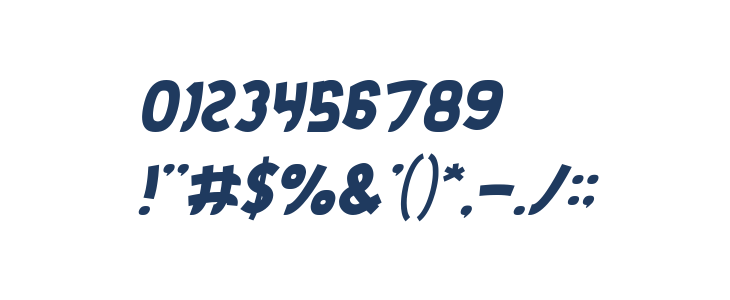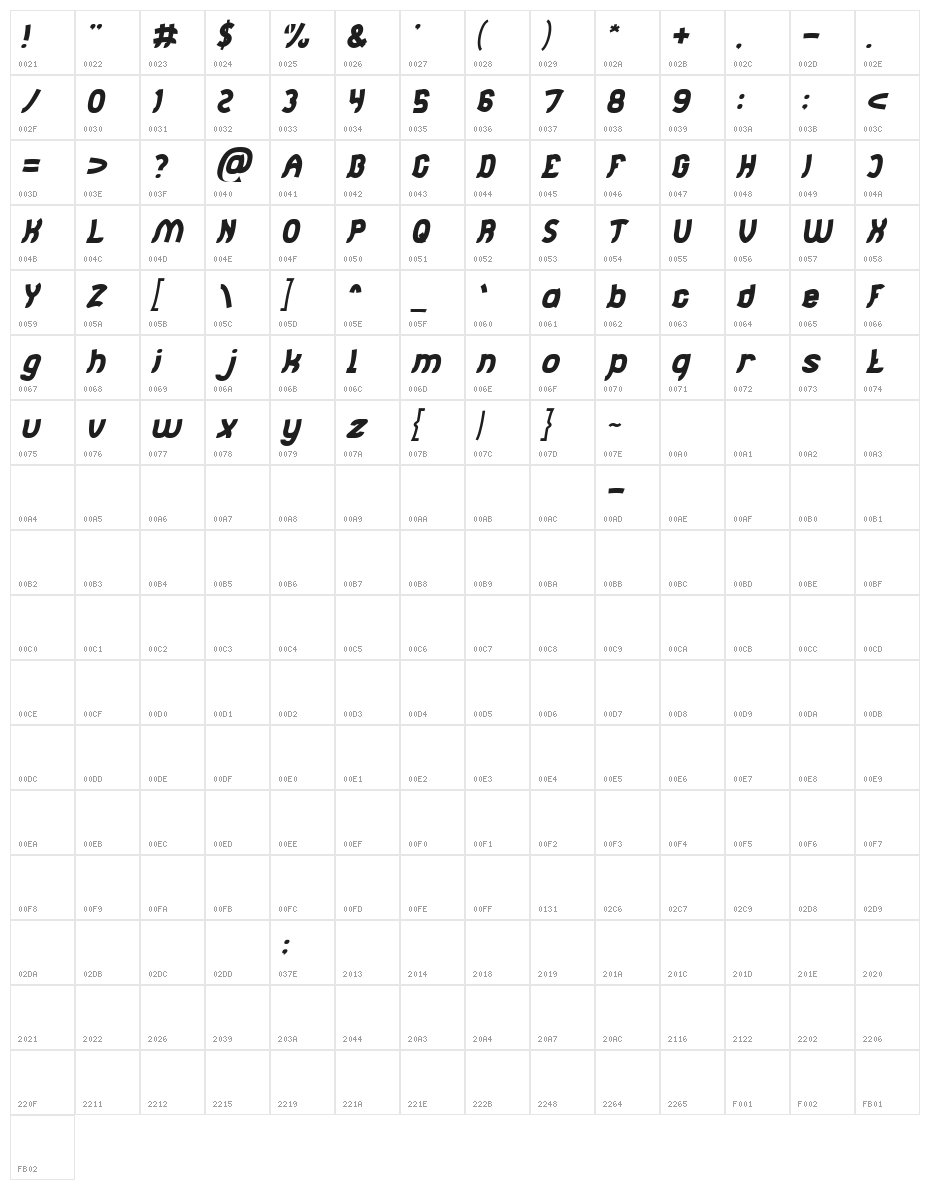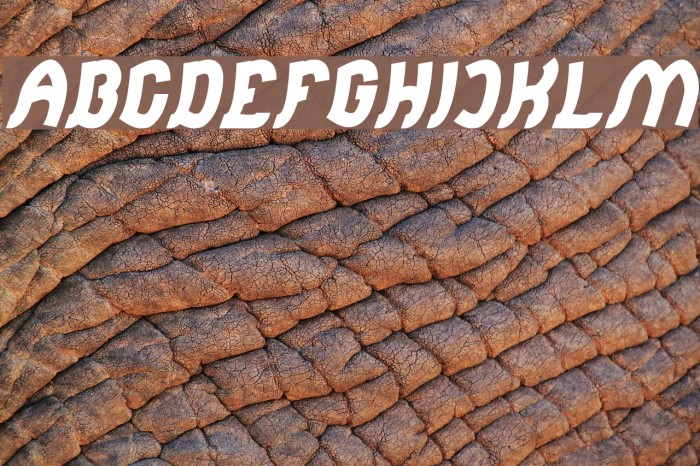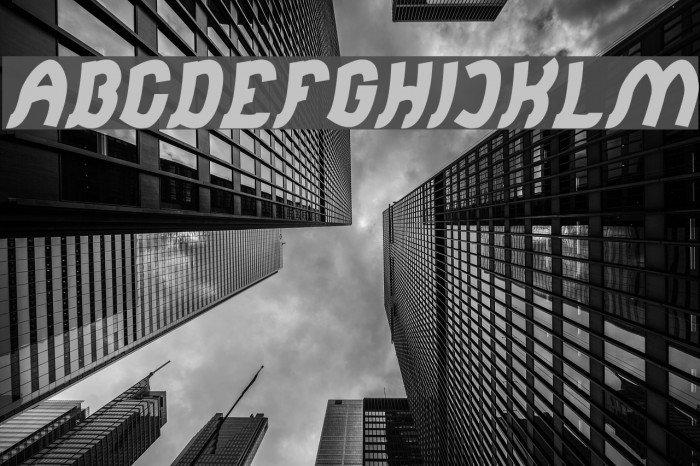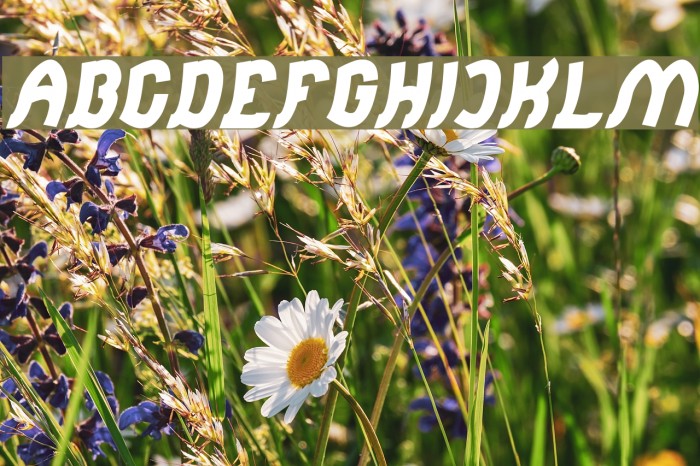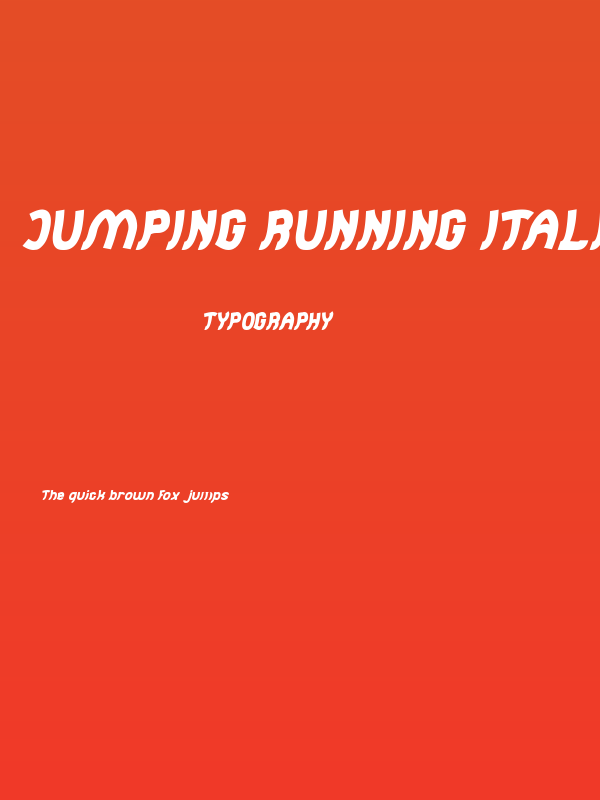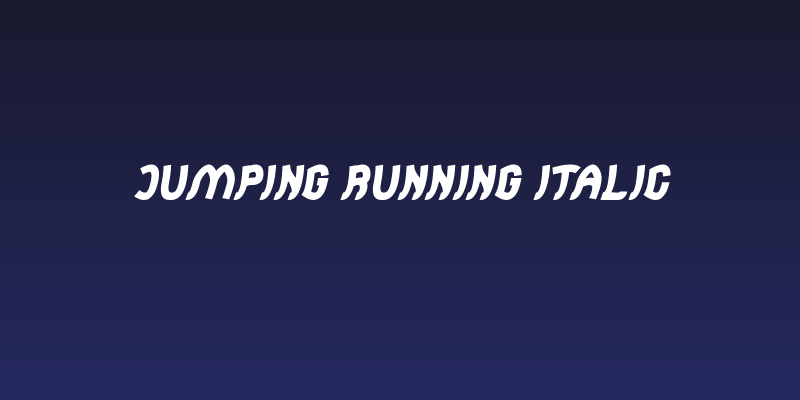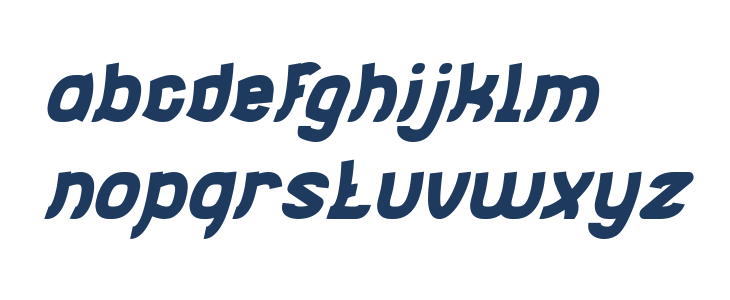
Jumping Running Italic Font
Jumping Running Italic Description
This font exhibits a dynamic and energetic style, characterized by its bold and italicized form. The letters have a playful, slightly slanted appearance that suggests movement and speed. The strokes are thick and consistent, providing a strong visual impact. The uppercase and lowercase letters maintain a cohesive look, with rounded edges and a slight tilt to the right. Numbers and special characters follow the same stylistic cues, ensuring uniformity across all glyphs. The overall design is modern and eye-catching, making it suitable for projects that require a lively and engaging typeface.
| Overall Style | Modern, Energetic |
| Proposed Projects | Ideal for sports branding, dynamic posters, energetic advertisements, and modern logo designs. |